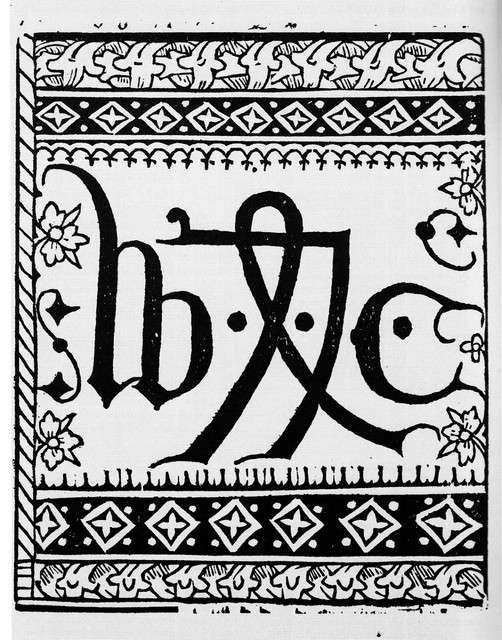
William Caxton
William Caxton appears on the facade of Scribners Sons Building, New York City alongside Johannes  Gutenberg and Benjamin Franklin
The exterior is both ornate and serene, melding an eye-catching but graceful verticality to the full menu of French Second Empire and Beaux Arts effects, including a two storey wrought iron shop-front; a mansard roof flanked by two Egyptian obelisks; and medallions commemorating great printers from the past, including William Caxton, Benjamin Franklin and Johann Gutenberg.
William Caxton statue on the Exhibition Road façade of The Victoria and Albert Museum, London
The Caxton Celebration – Wiliam Caxton showing specimens of his printing to King Edward IV and his Queen.
Published in The Graphic in 1877 refering to The Caxton Celebration. The Caxton Celebration, commemorating the 400th anniversary of the first printed book in England, took place in London in the summer of 1877.
Ringtons Tea      Historical Scenes  1964      Caxton appeared on card number 12 in a series of 25
Hignett Cigarette cards set Historical London from 1926
Caxton was card number 9 of 25
Glengetties Tea      Historical Scenes 1968      Caxton appeared on card number 12 in a series of 25
The image and wording is the same as used in the Ringtons Tea card used in 1964.
Caxton appears in a pane below The Virgin Mary in the East Window of St Mary, Ludgershall, Buckinghamshire
This window dates from 1947
William Caxton in his Print Shop
From My Book of True Stories, Blackie and Son Limited, London.    c.1907
"William Caxton Examining the First Proof Sheet from his Printing Press in Westminster Abbey A.D. 1471"
Engraving by Frederick Bacon (1803-1887)  published in 1860
Brooke Bond Tea Cards    Inventors & Inventions Series
Card number 5 (of 50) was History of Printing
The wording on the back mentions Gutenberg and then Caxton, but the image points toward Caxton
Caxton's Device
Two different dates for the first use of Caxton's colophon device:
William Caxton's colophon device was first used in his printed work "The Recuyell of the Historyes of Troye," published in 1473.
Caxton developed his printer's mark relatively late in his career; the device did not appear until 1487, when he published a liturgical missal - Missale Sarum - in Paris with Guillaume Maynyal. His relatively large device is composed of his initials, W.C., in script flanking an interlaced symbol of indeterminable meaning. After Caxton's death in 1491, his successor Wynkyn de Worde modified the mark to use as his own.
William Caxton's colophon device was first used in his printed work "The Recuyell of the Historyes of Troye," published in 1473.
Terracotta relief of William Caxton on the former Norfolk Daily Standard Offices, Norwich, UK
William Caxton - Science, Invention and Discovery - British Heritage Card      1979